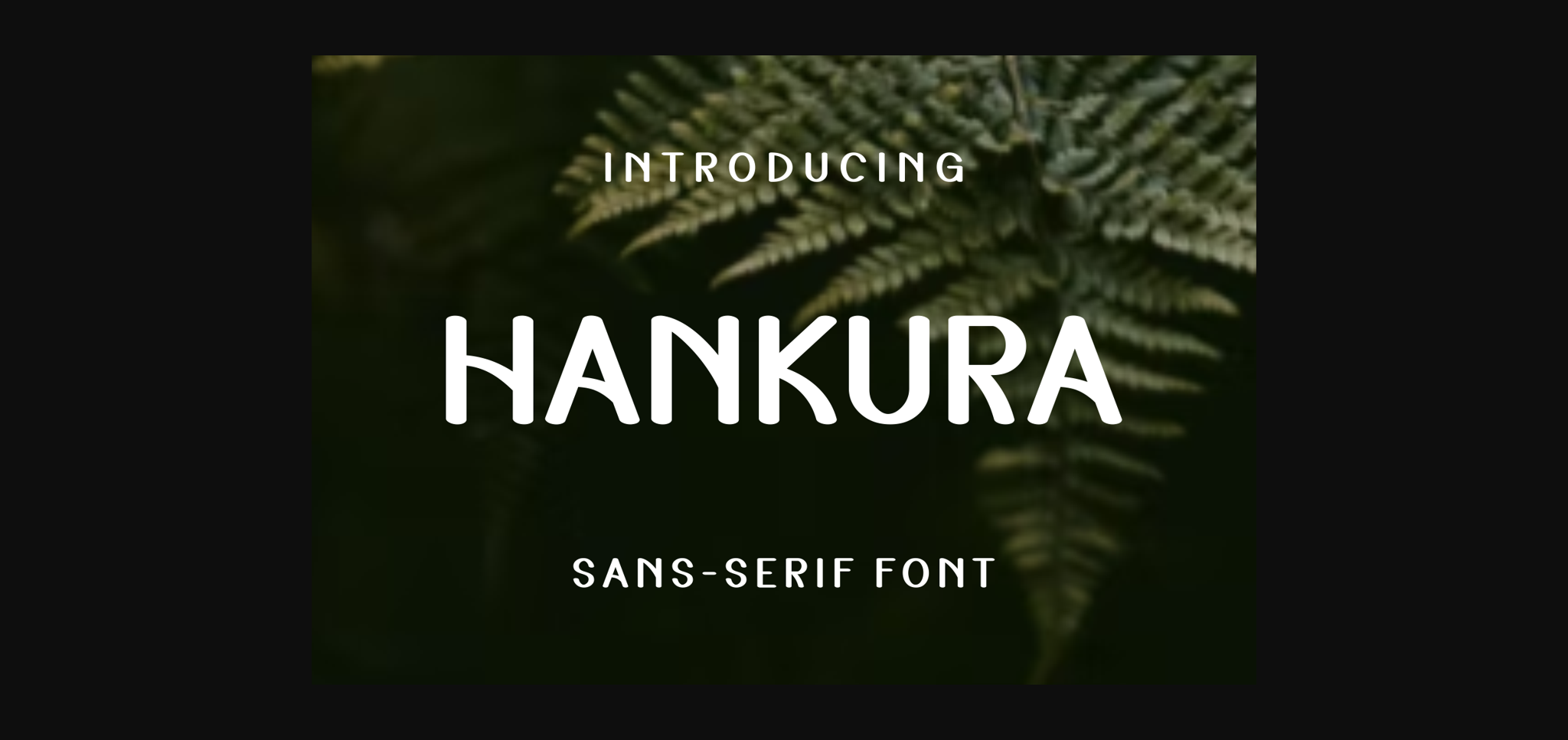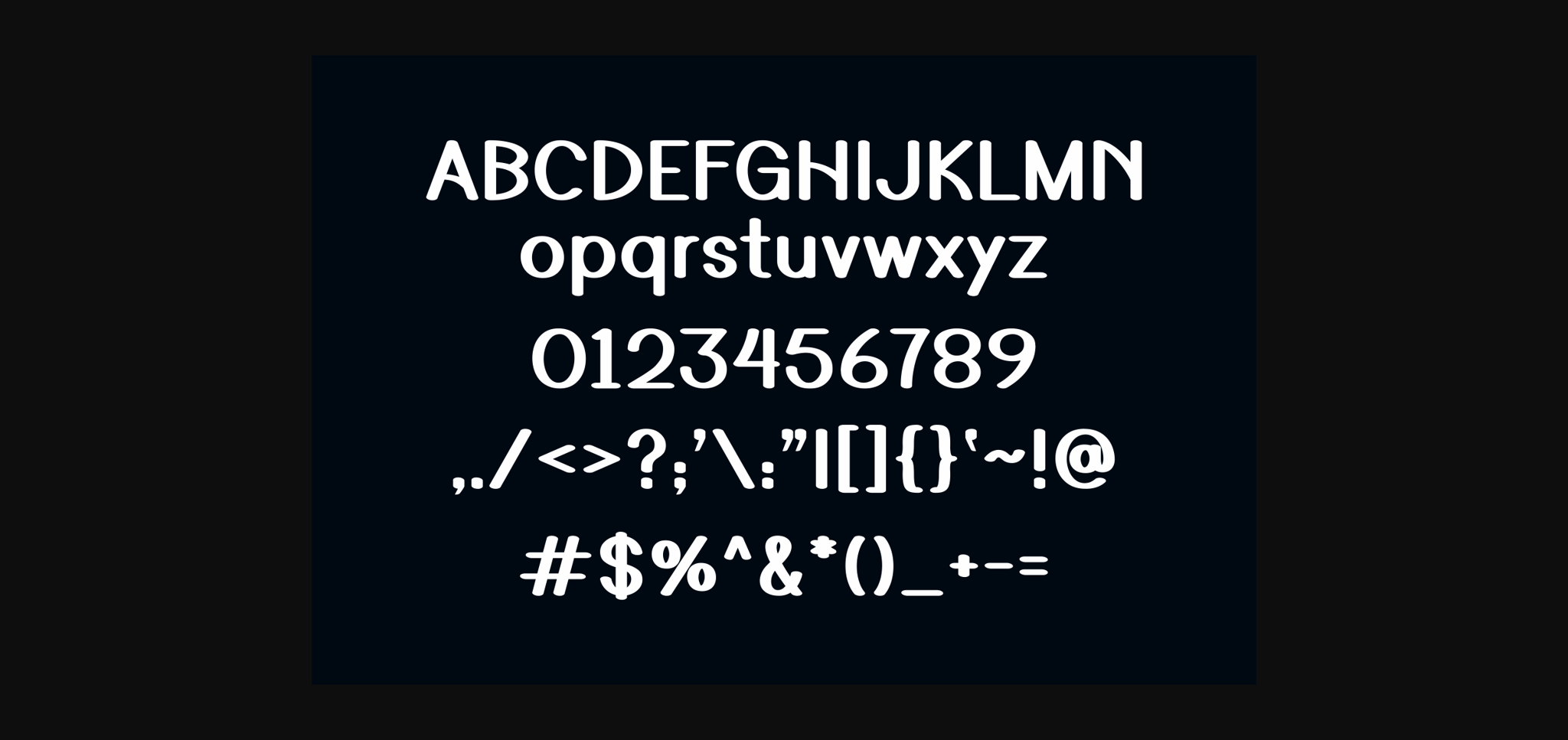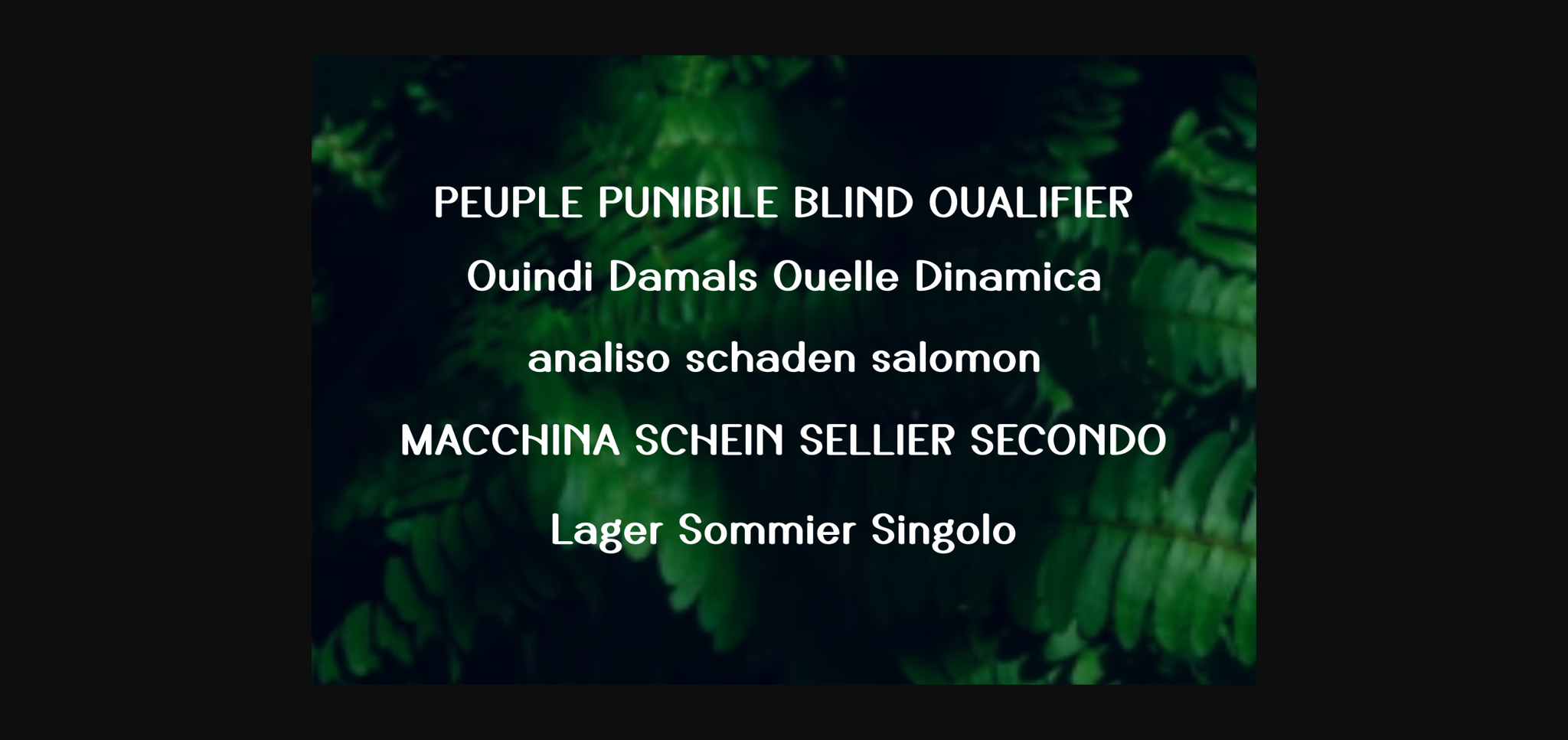
Sans Serif Fonts Hankura Font 0 178 FacebookTwitterPinterestWhatsApp 1 of 5 ... Hankura Font Poster 2... Hankura Font Poster 3... Hankura Font Poster 4... Hankura Font Poster 5... About Hankura Font Hankura is a cool and unique sans serif font. Fall in love with its incredibly distinct and timeless style and use it to create spectacular designs! DOWNLOAD NOW